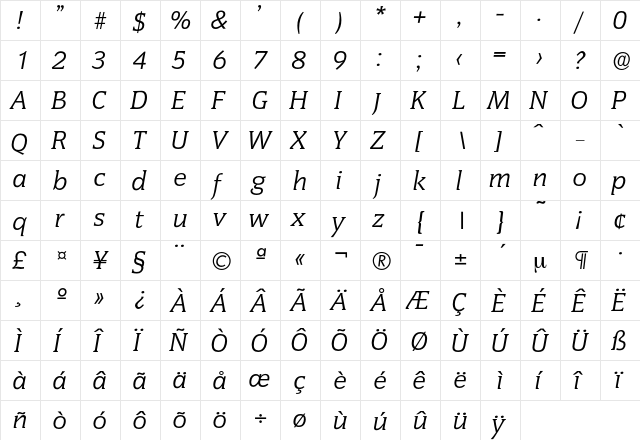
Congress-RegularIta Regular
Design Context for Congress-RegularIta Typeface
Congress-RegularIta is a composed and adaptable typeface that performs quietly and consistently across a wide range of design contexts.